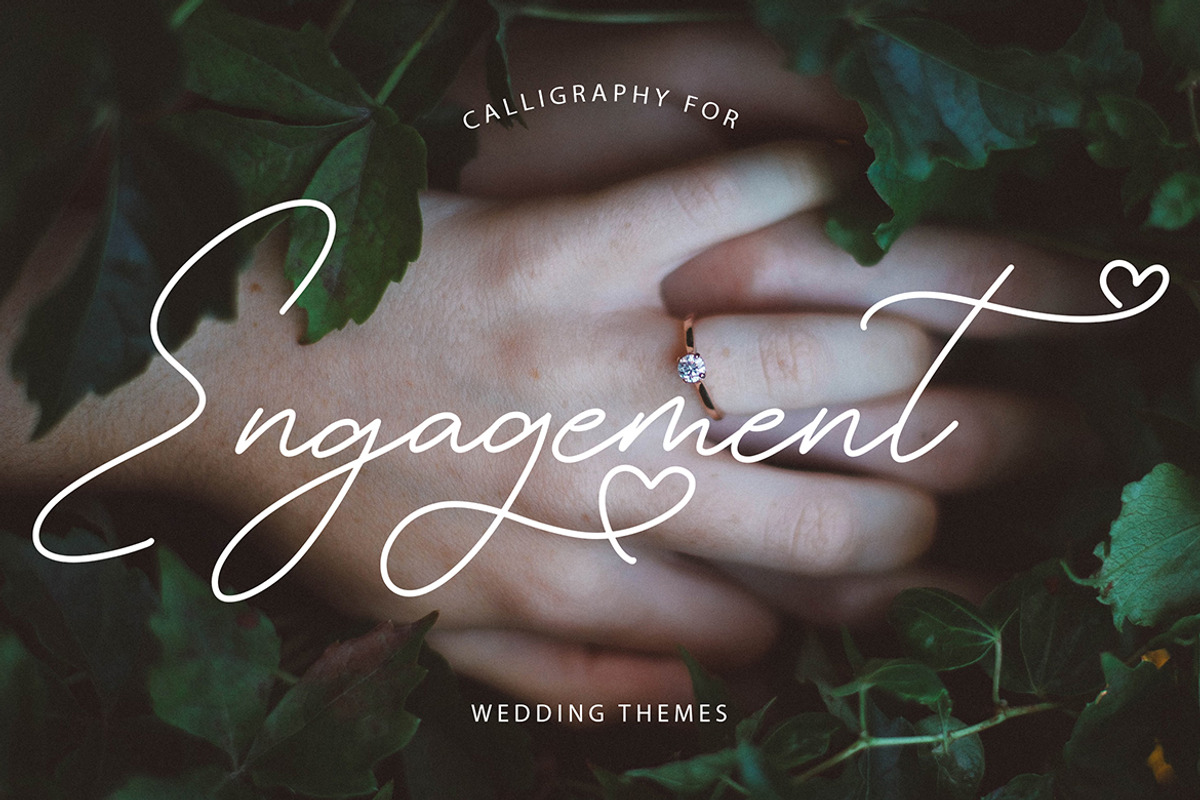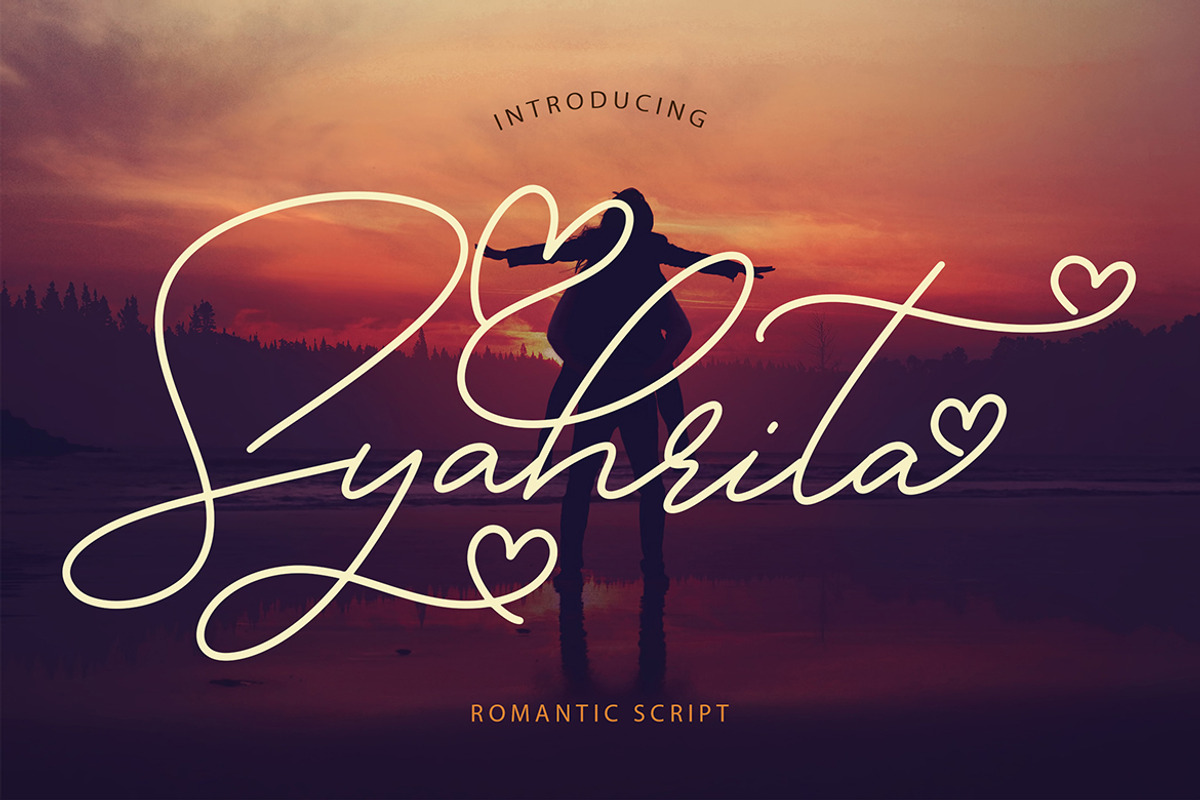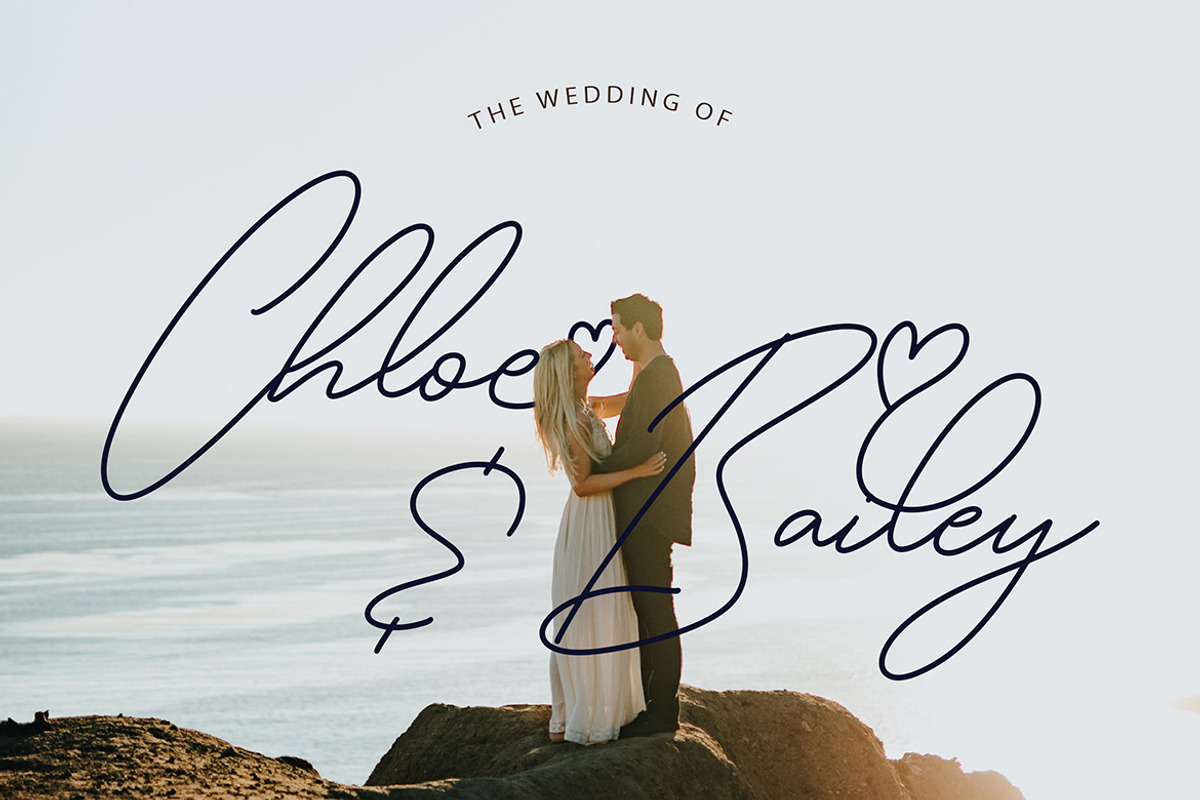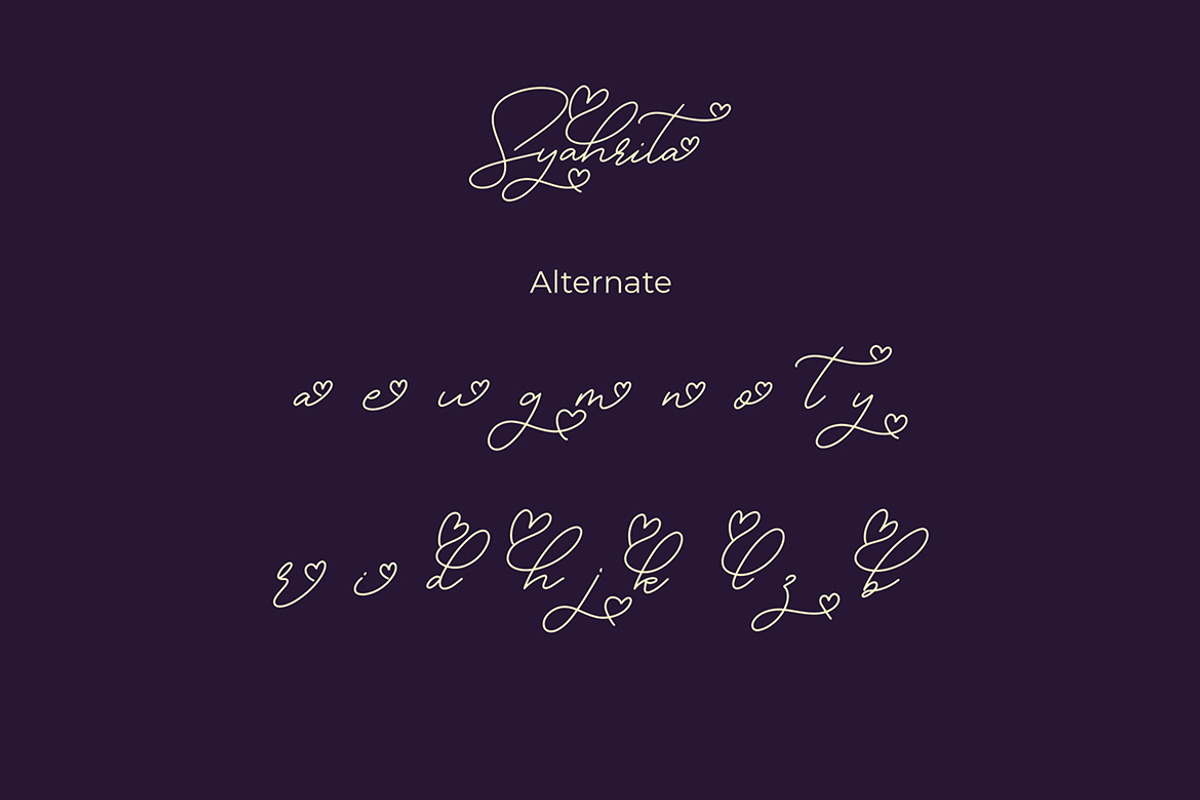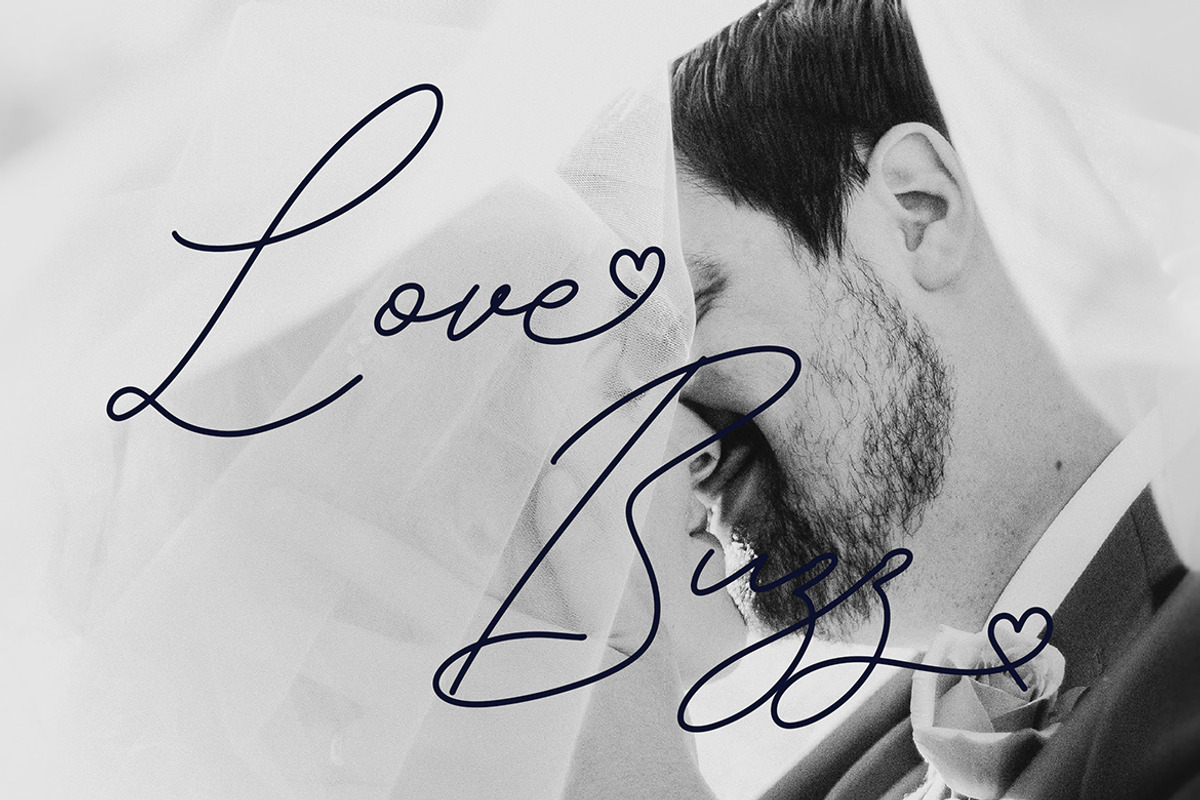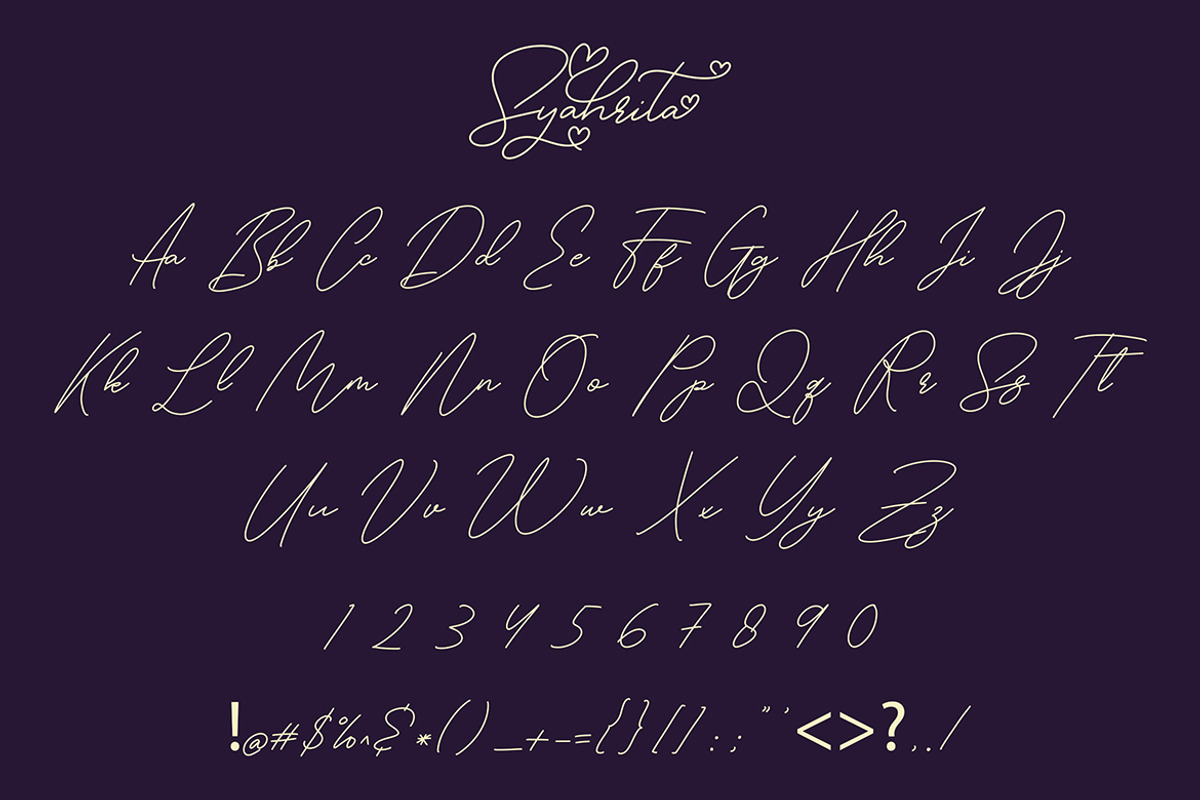
Syahrita Beautiful Romantic Font
Syahrita a beautiful romantic font with a unique alternate. This beautiful script can make your text appear elegant, luxurious, and modern!
Syahrita is perfect for branding projects, logo, wedding designs, social media posts, advertisements, product packaging, tshirt design, product designs, label, photography, watermark, invitation, stationery and any projects.
- Syahrita a beautiful romantic font with a unique alternate.
Why Syahrita Beautiful Romantic Font is worth a look
Syahrita Beautiful Romantic Font by Formatika Studio fits naturally into Branding, posters, packaging, typography.